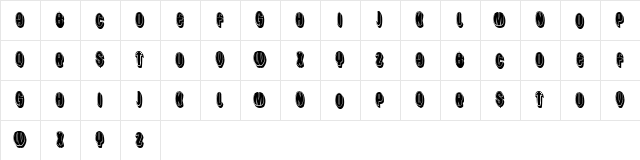
Squirrel Regular
Design Context for Squirrel Typeface
Squirrel is a composed and adaptable typeface that performs quietly and consistently across a wide range of design contexts.